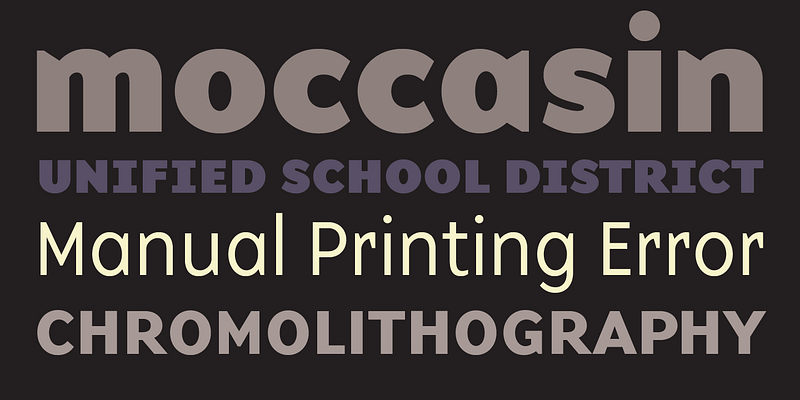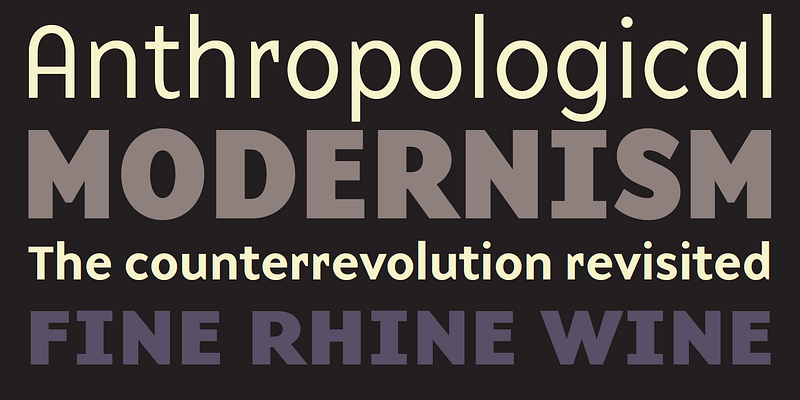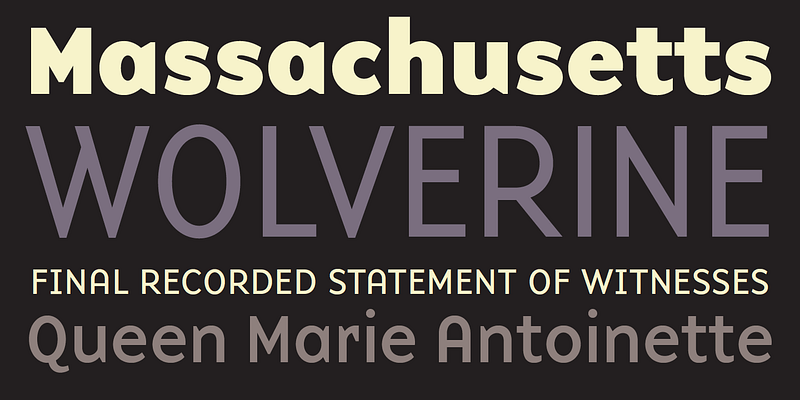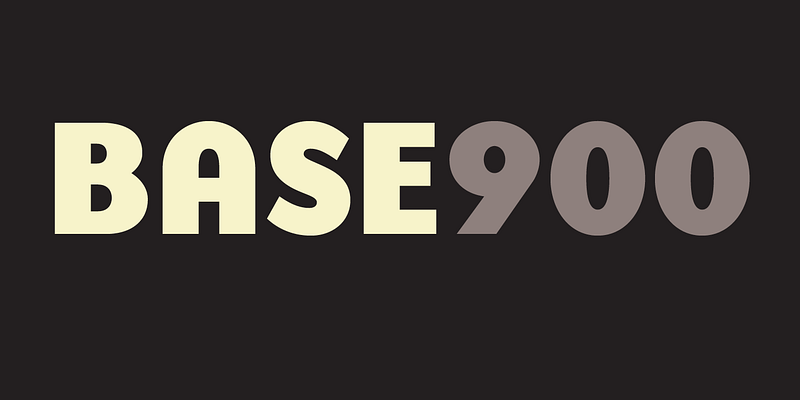
The lineage of Base 900 is an example of how technological restraints can serve as a source for design inspiration and exploration. The design of Base 900 morphed from a bitmap, to a restricted outline, to a full, high resolution typeface. The resulting Base 900 fonts still convey a modular, geometric style, reminiscent of the early computer technology era, but with an updated, more refined look made possible by a high resolution grid.